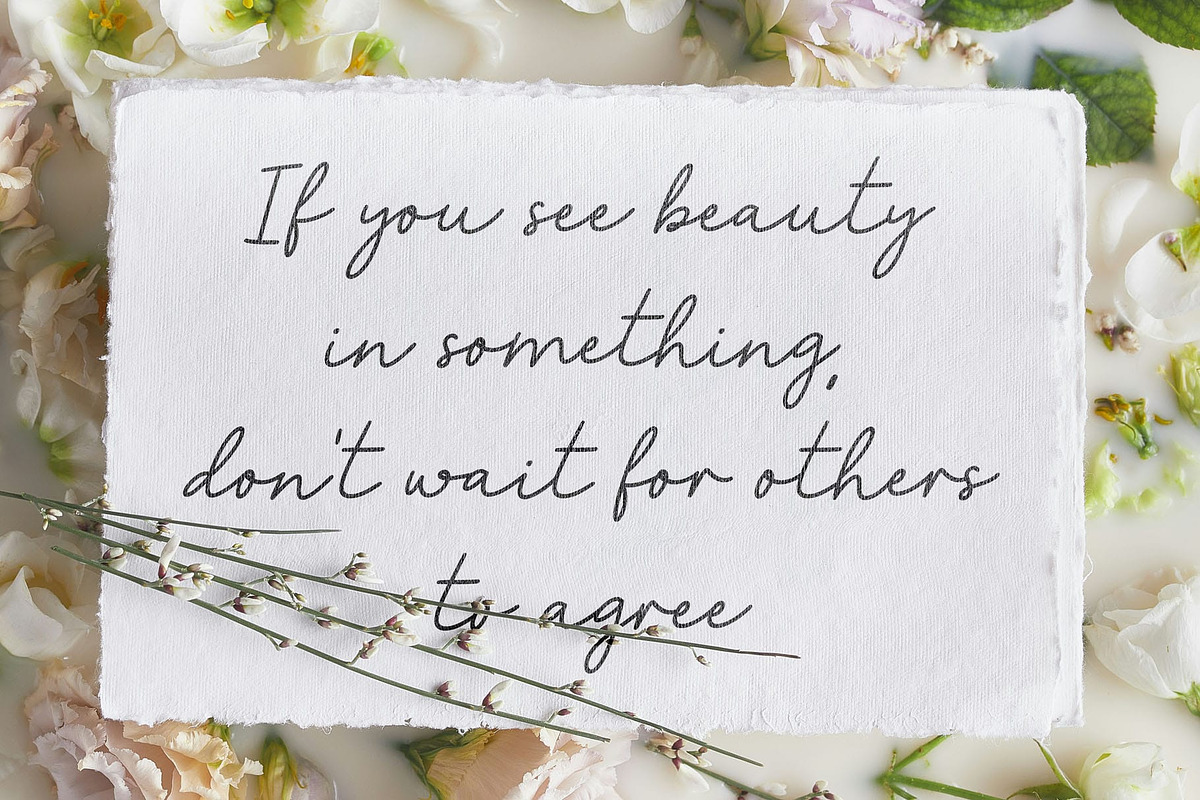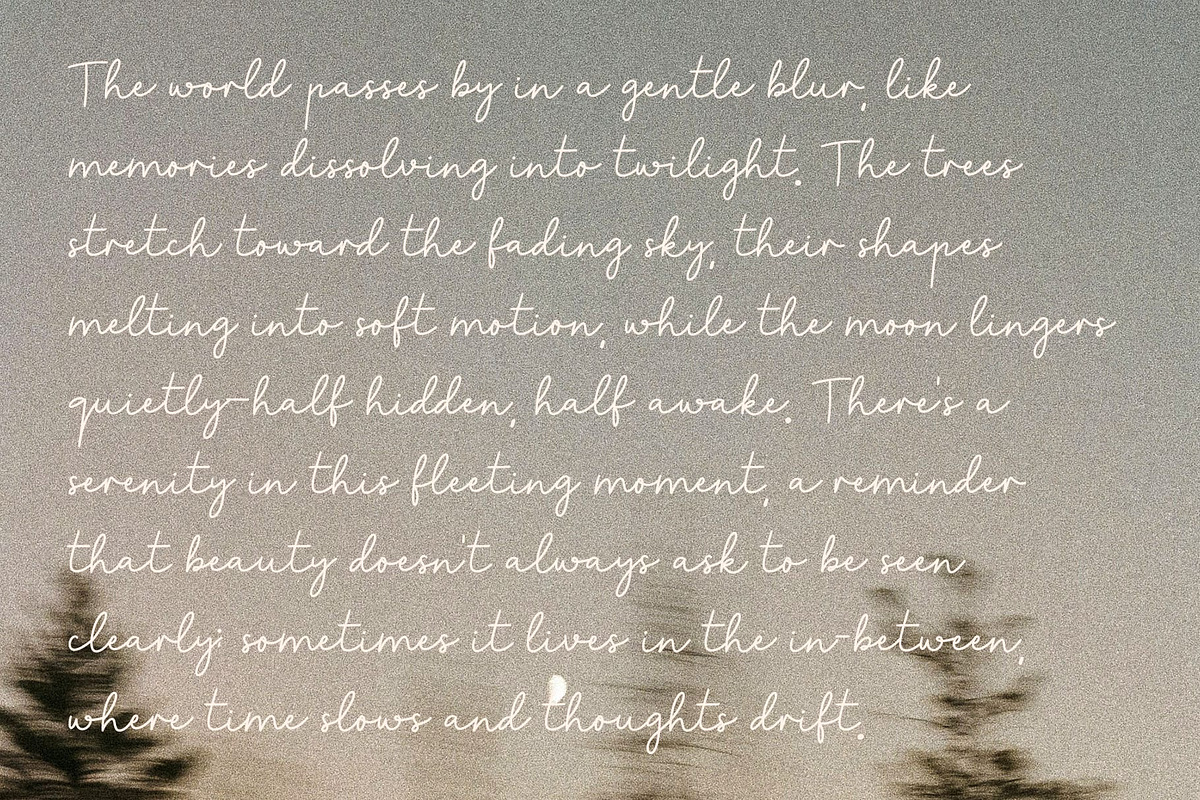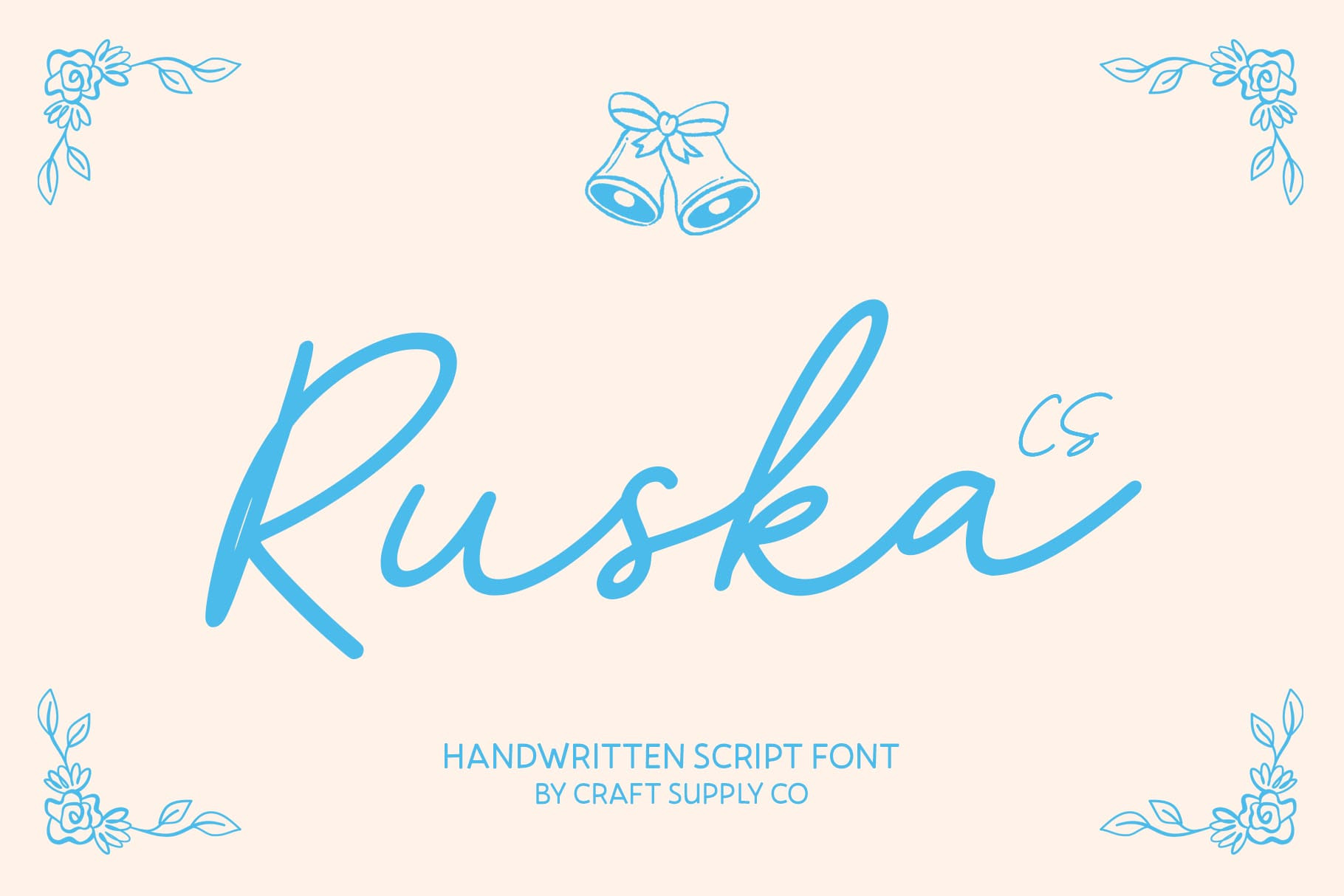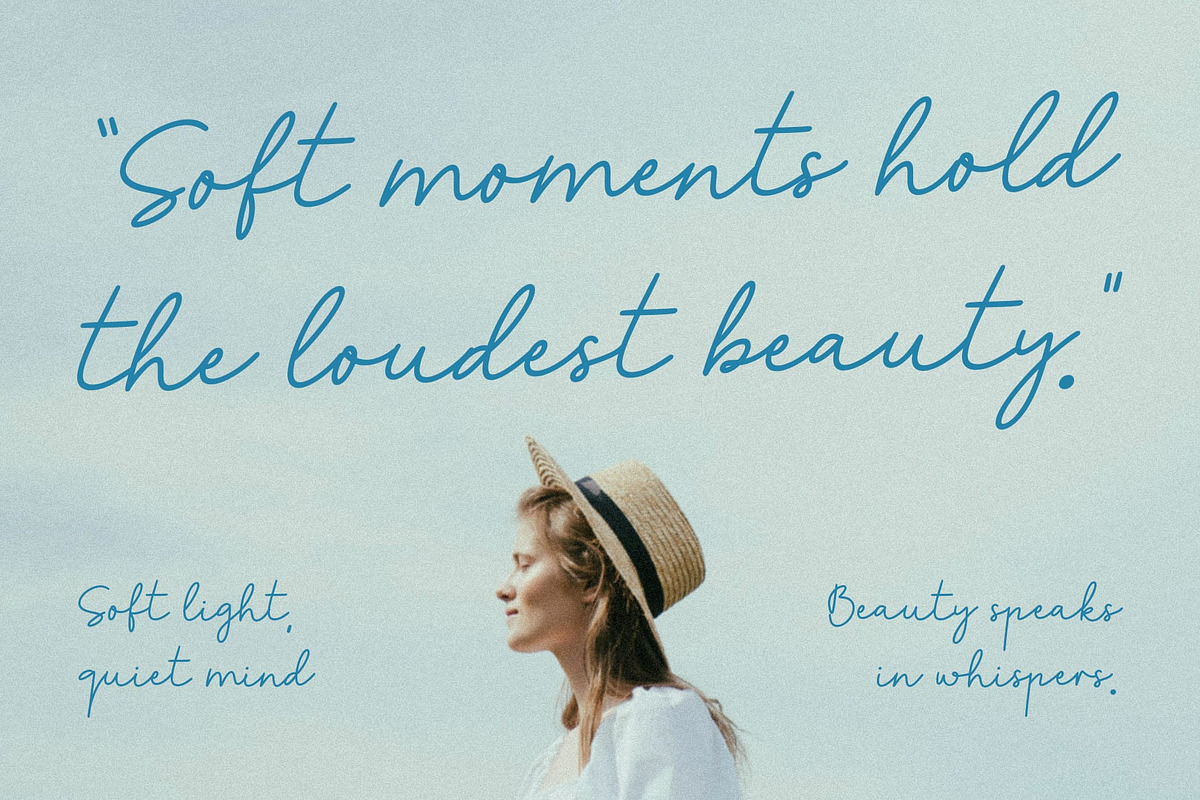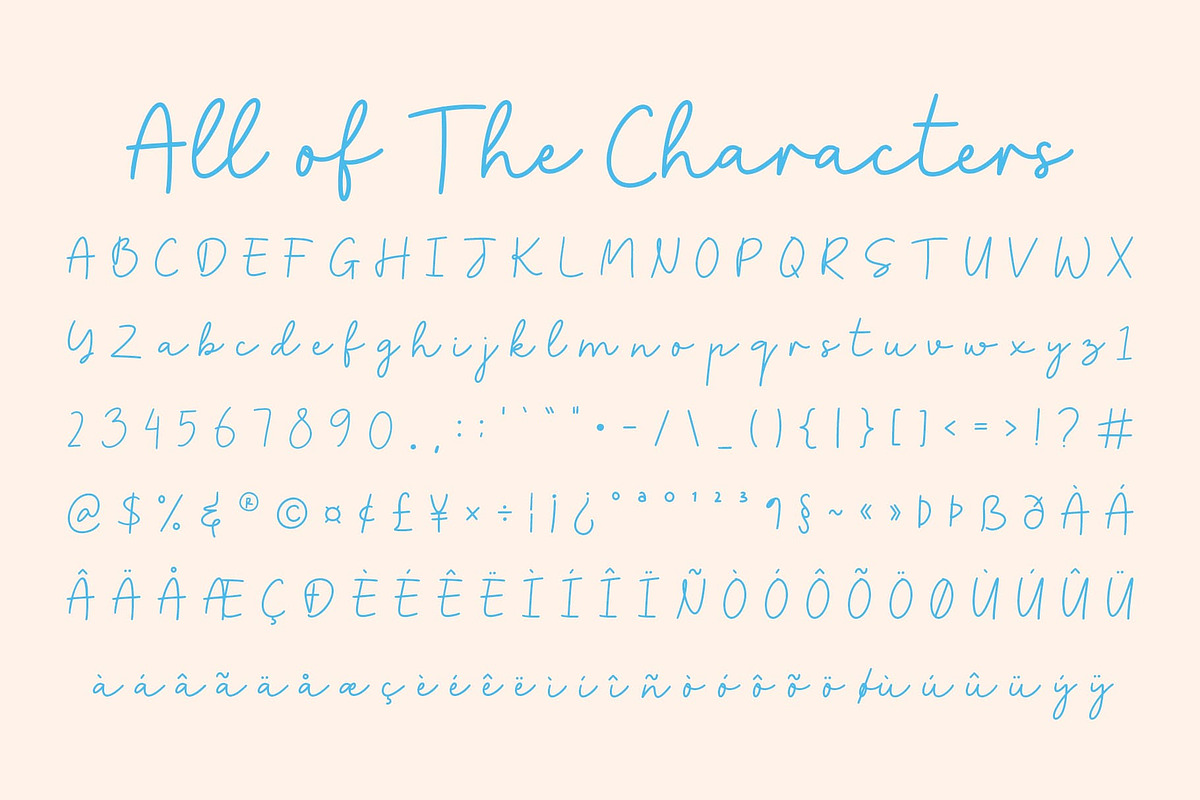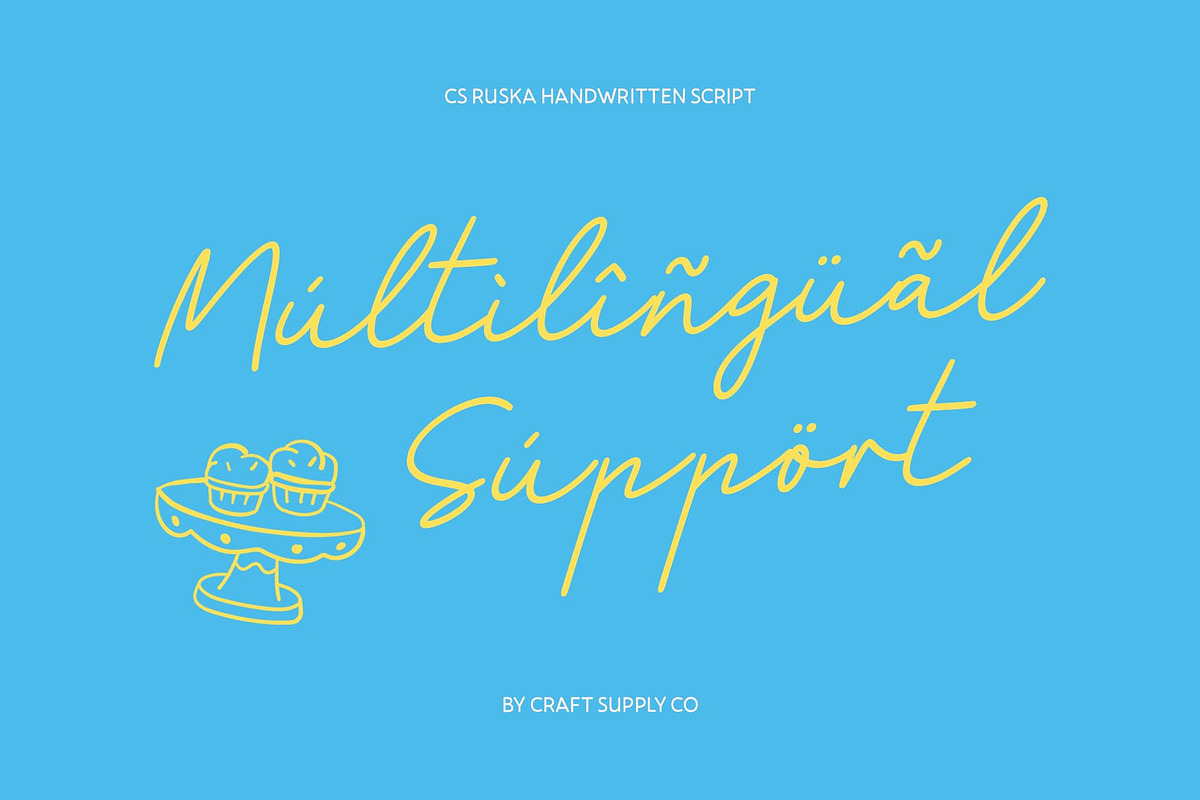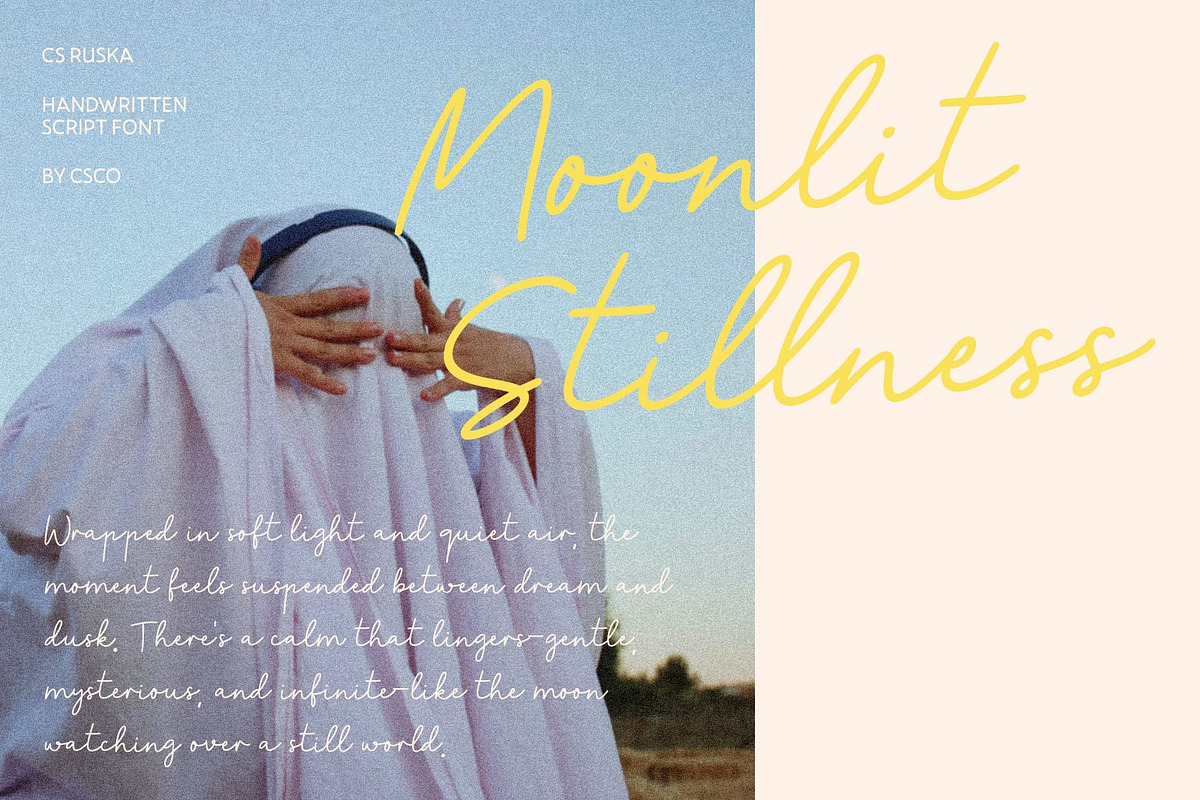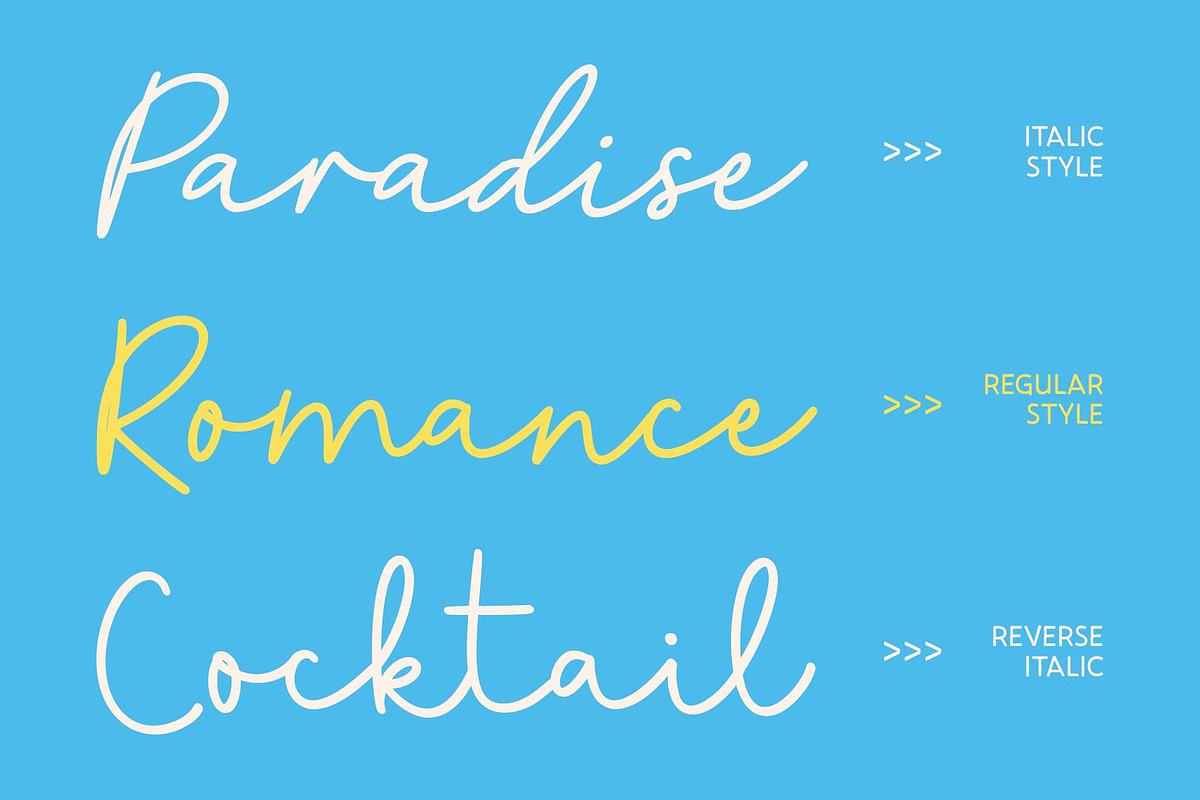
CS Ruska – Handwritten Script Font
CS Ruska – Script Font with Mediterranean Elegance
Romantic Script with Timeless Charm This is a romantic and stylish script font that flows gracefully, capturing the essence of Mediterranean beauty and sophistication. Its smooth, fluid strokes reflect the warmth and charm of Italian handwriting, bringing an air of timeless refinement to every design.
Elegant Flow and Natural Movement Every curve in this font is crafted to create a seamless rhythm between letters. The flowing forms and delicate contrast give the font a natural handwritten grace ideal for projects that require both beauty and personality. It feels effortless yet distinctly elegant, evoking the feeling of handwritten love notes and artisan craftsmanship.
Italian Sophistication in Every Detail Inspired by classic Italian aesthetics, this font embodies confidence, romance, and artistic flair. The balanced proportions and graceful ligatures make it suitable for high-end designs while maintaining a soft, inviting character.
Perfect for Refined and Luxurious Designs Whether used for branding, wedding invitations, packaging, editorials, or luxury products, this font adds an elevated touch of elegance. Its stylish flow and Mediterranean-inspired spirit make it the perfect choice for projects that aim to convey romance, sophistication, and timeless beauty.
- CS Ruska Regular
- CS Ruska Italic
- CS Ruska Reverse Italic